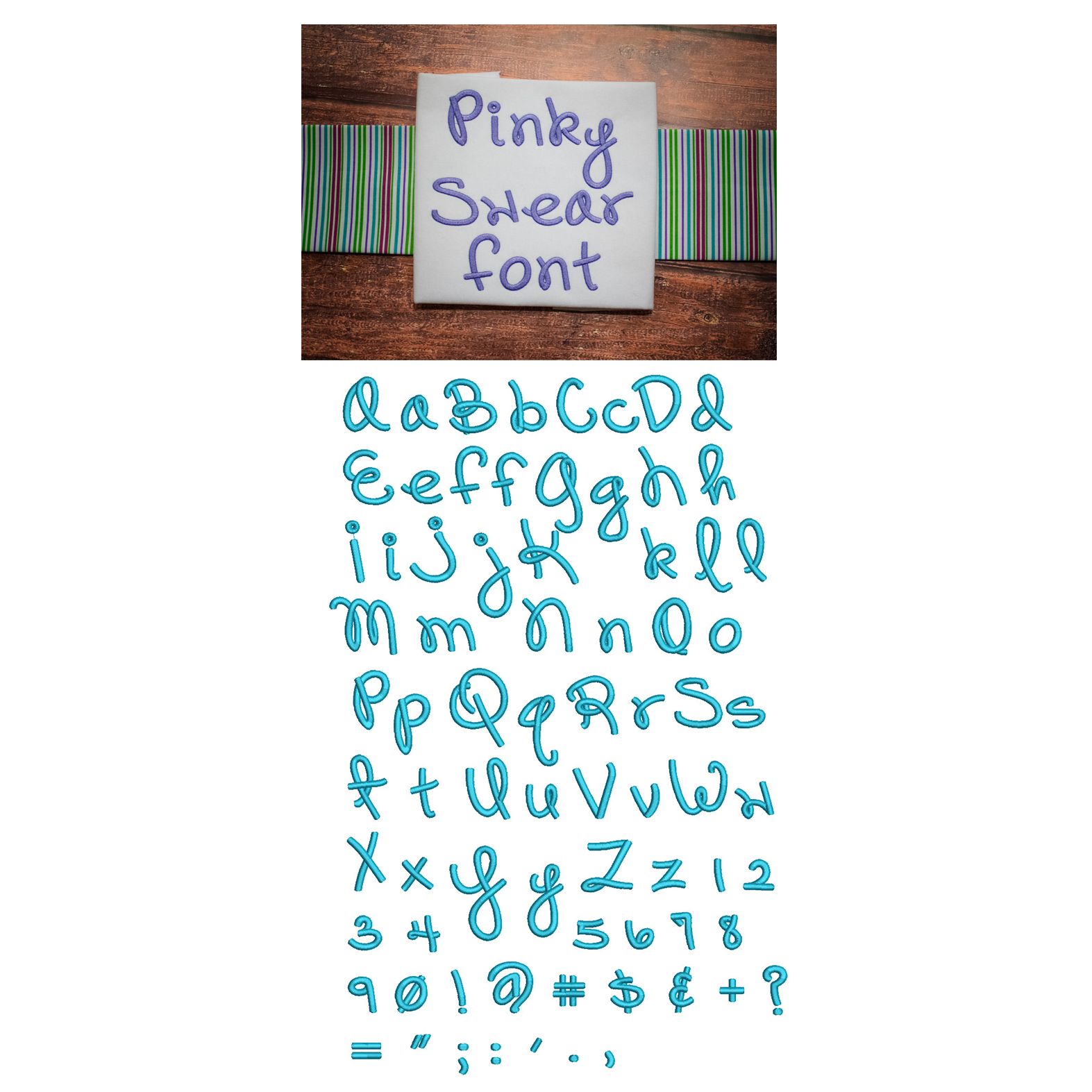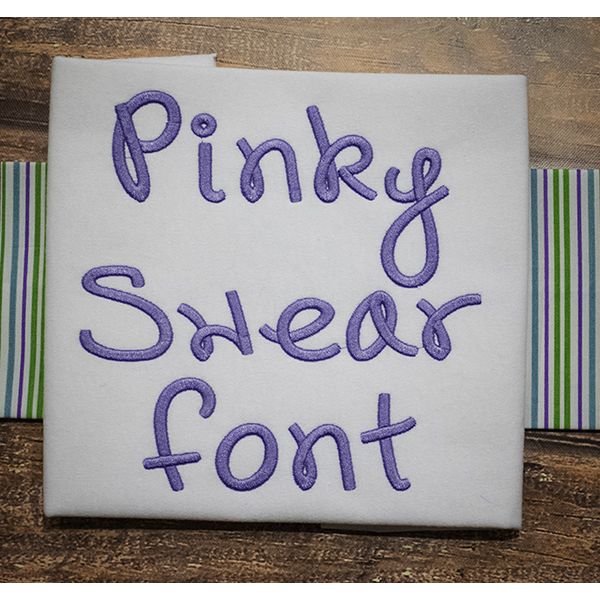
Pinky Swear Satin Stitch Embroidery Font
Adorable loopy cursive font!  All of our font alphabets are 100% manually digitized to bring you maximum stitch quality.